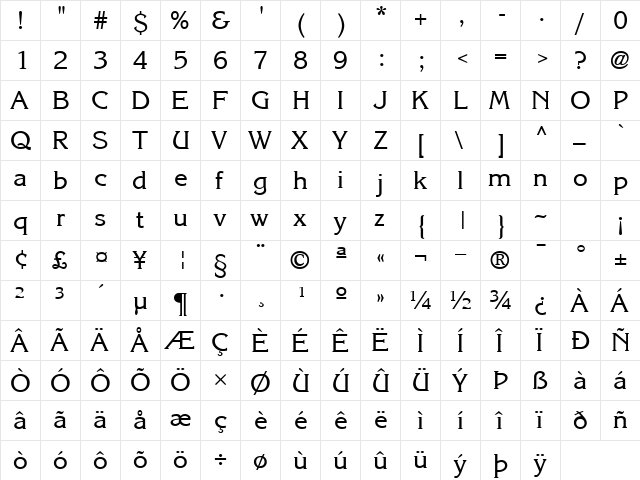
Kane Regular
Design Context for Kane Typeface
Kane is a composed and adaptable typeface that performs quietly and consistently across a wide range of design contexts.